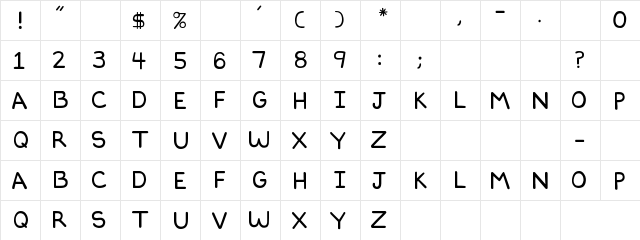
DILBERTFONT2 Regular
Design Context for DILBERTFONT2 Typeface
DILBERTFONT2 is a composed and adaptable typeface that performs quietly and consistently across a wide range of design contexts.